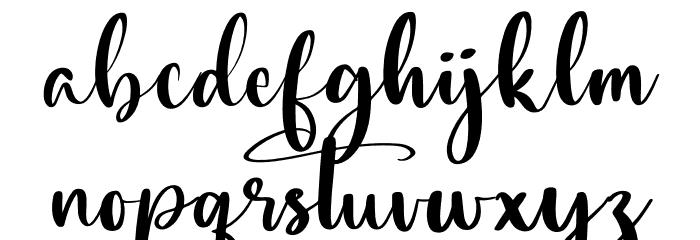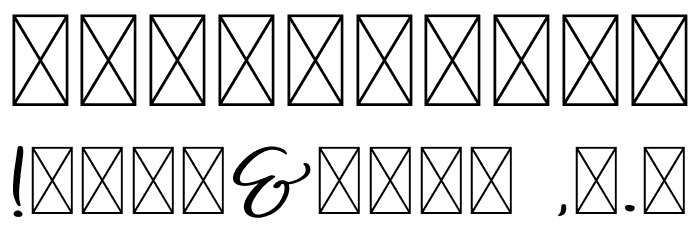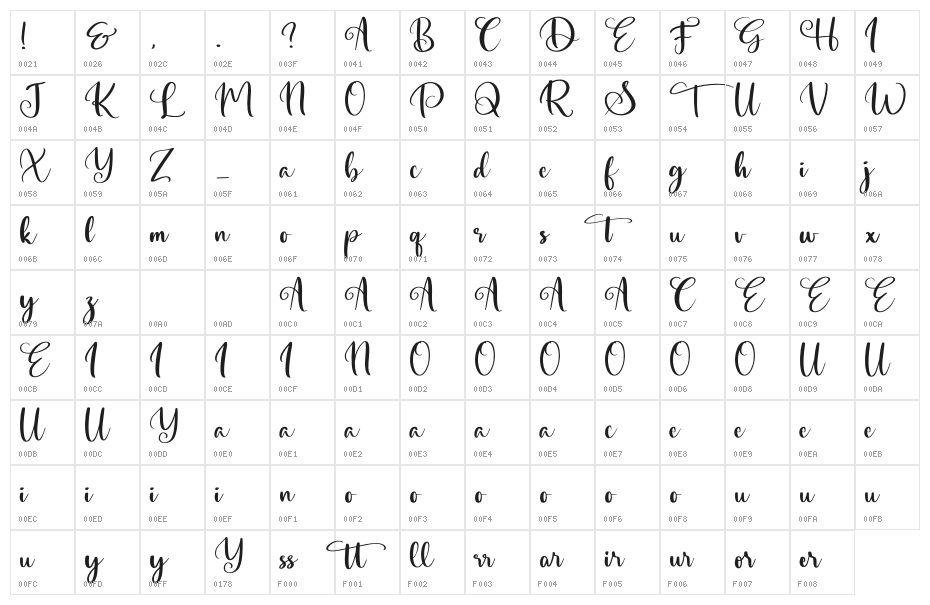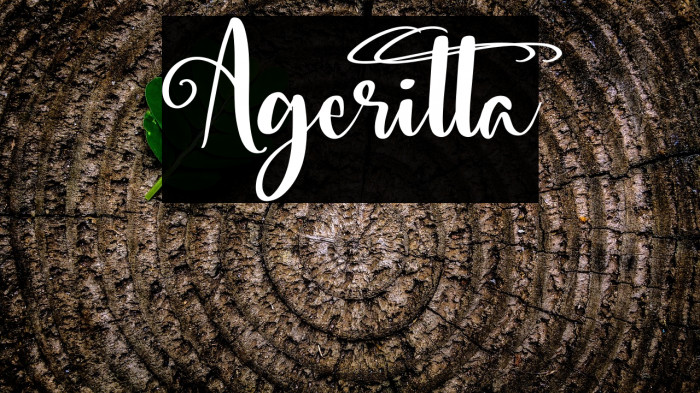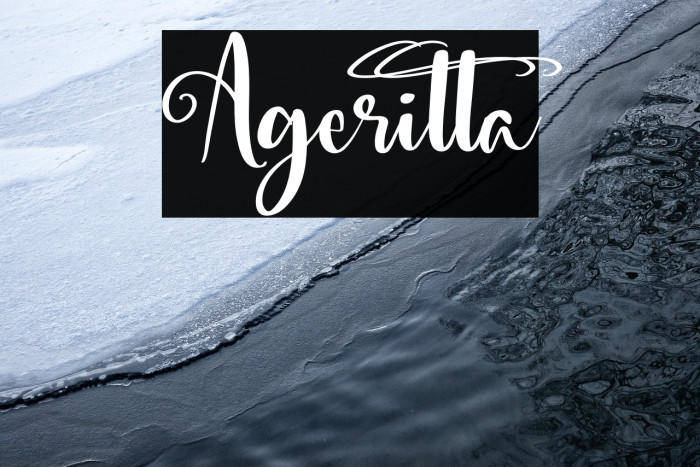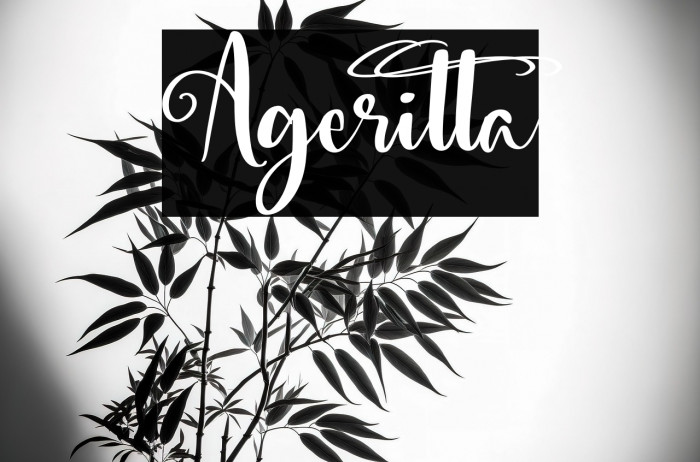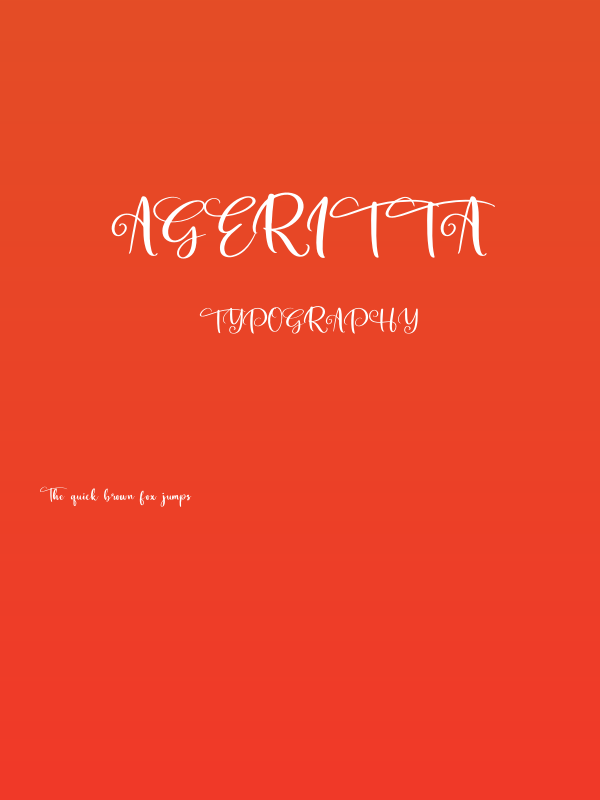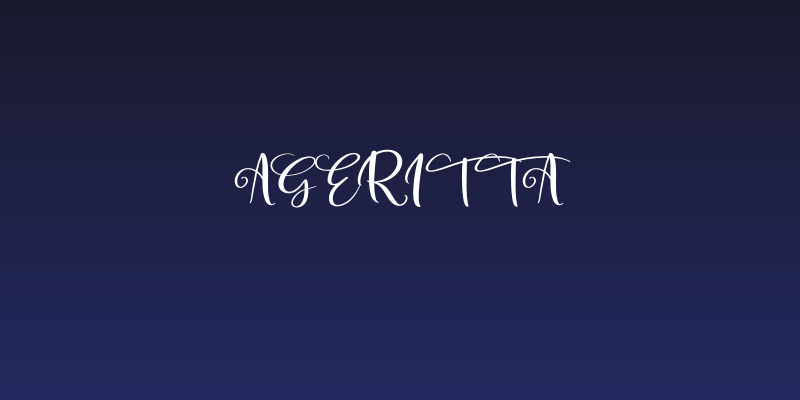
Ageritta Font
This font features an elegant and flowing script style, characterized by its smooth, cursive letterforms. The uppercase letters exhibit a graceful, looping design with decorative swashes, while the lowercase letters maintain a consistent, fluid appearance. The overall aesthetic is both sophisticated and playful, making it suitable for a variety of creative applications. The font's design emphasizes a harmonious balance between thick and thin strokes, contributing to its refined and stylish look. The characters are well-spaced, ensuring readability while maintaining an artistic flair.
An elegant, flowing script font with decorative swashes and balanced strokes.
- Proposed Projects: Ideal for wedding invitations, greeting cards, branding, and elegant logos.
- Use Case: Logos, Invitations, Branding